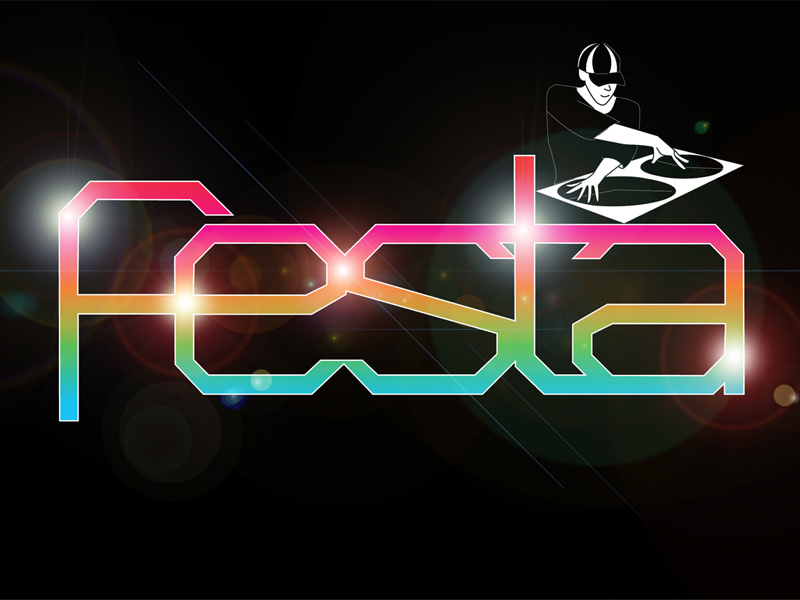
VLOBJ by Valter Bispo is a free geometric techno display font built from slim, even strokes. Rounded forms become octagonal outlines, with clipped corners and broad interior spaces recalling early vector displays. The construction feels precise yet spare.
A technology brand could use it for a logo, product packaging, or launch graphics with an electronic edge. It also suits game interfaces and music-event posters, where the angular contours can echo circuit diagrams and screen graphics. The clearest audience is designers working in gaming, electronics, and futuristic entertainment.
This font has been redesigned, with improvements to the angles and shapes of its letters.